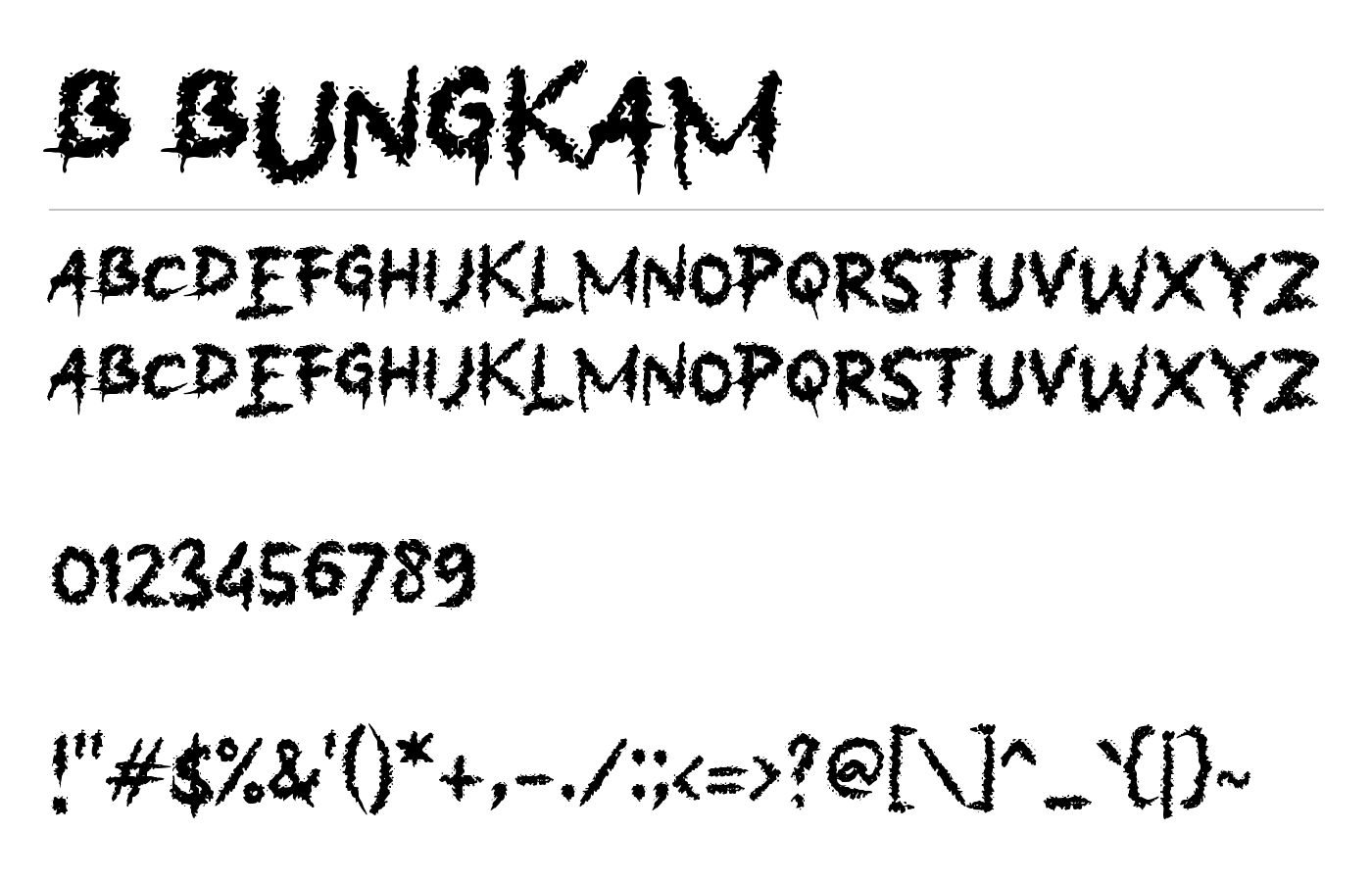
b Bungkam is a bold, horror-inspired display font with a rough, textured look that resembles dripping or decayed edges. Its uppercase letters have a jagged, uneven style that creates a spooky, unsettling mood, making it perfect for Halloween designs, horror movie posters, or any project seeking an eerie, dramatic impact. This font’s distinctive character and strong personality work best at large sizes for headlines and titles where its unique style can stand out.
b Bungkam Font
About b Bungkam Font
| Font family | b Bungkam Font |